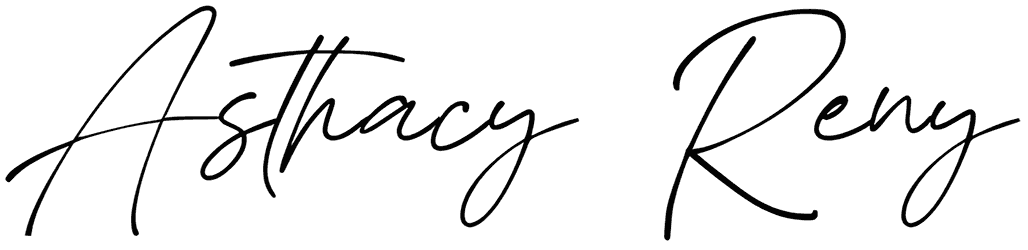
Asthacy Reny Font
Asthacy Reny is another hand-written signature font, but unlike any other similar fonts you have come across, this specific font offers delicate and elegant characters that are stylish! Manipulate this font for one fashionable typography that has a feminine feel.
Each of the modern letterforms gives your design a unique personality that looks stunning and attractive. Asthacy Reny is best for fashions, logos, branding, cards, magazines, and headlines, or wherever you enjoy including this font.